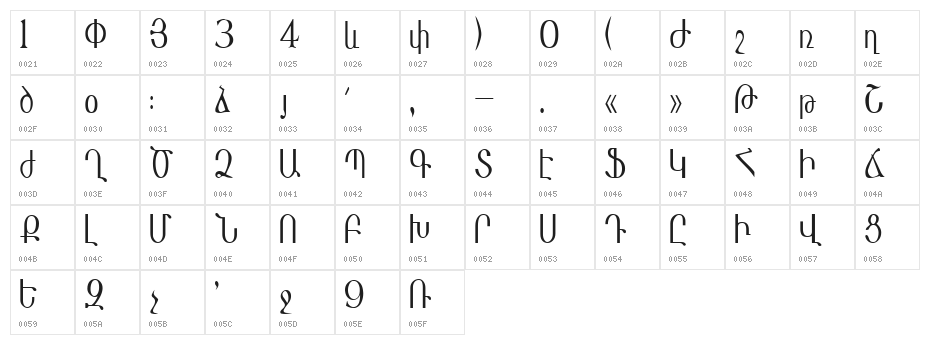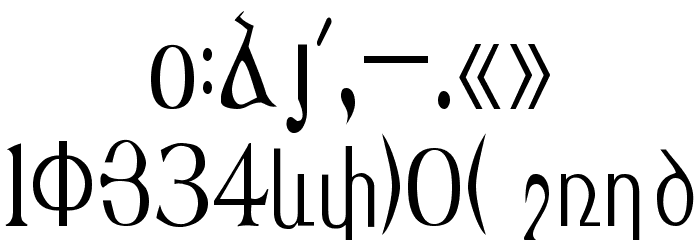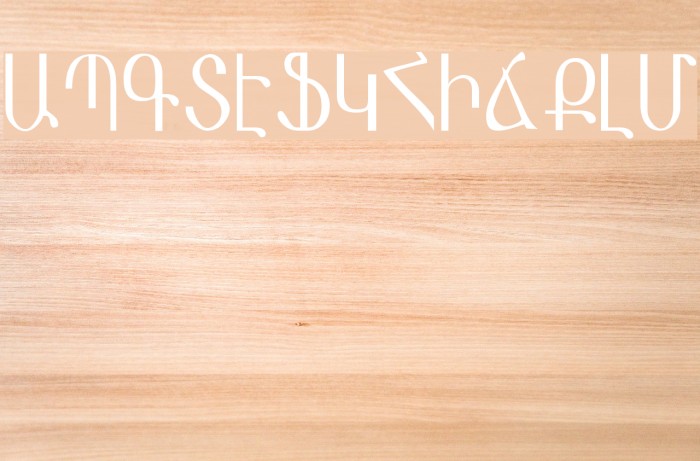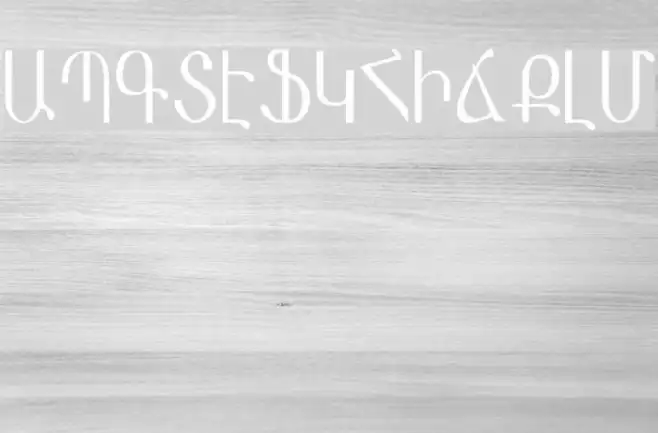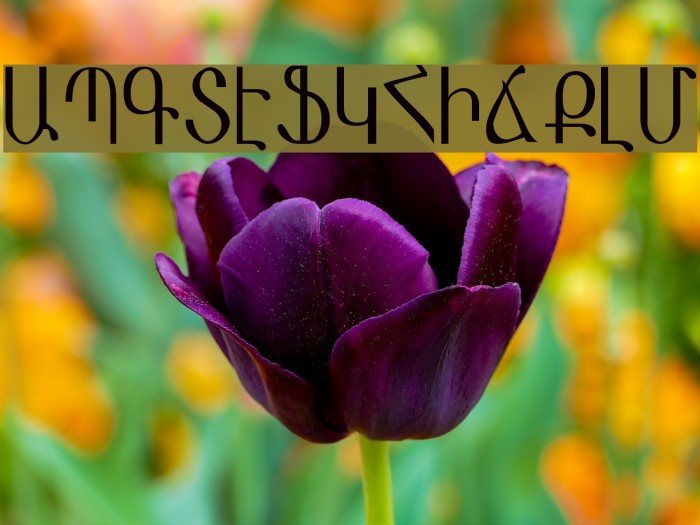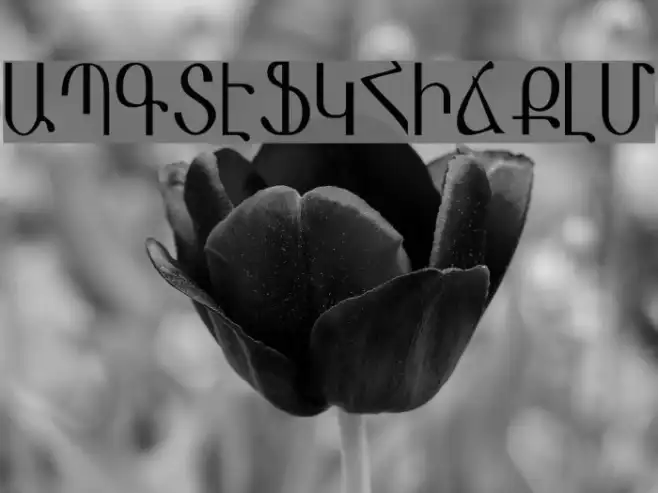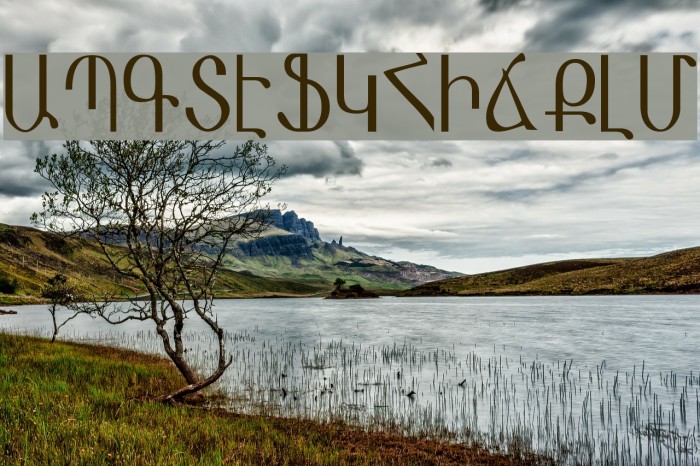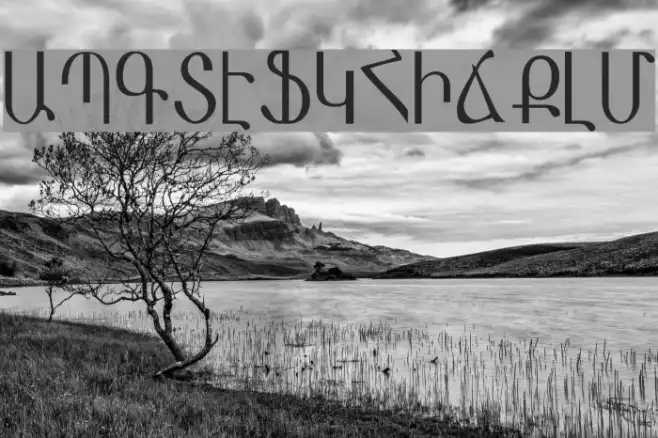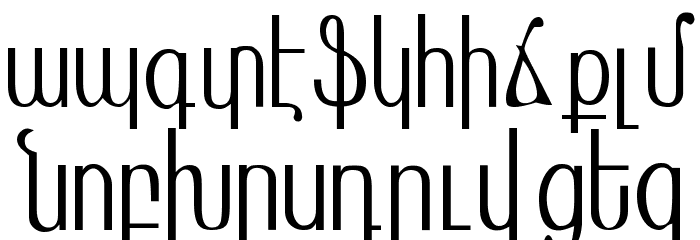
MasisNihar Font
MasisNihar Description
This font features a unique and artistic design, characterized by its elegant curves and sharp angles. The letters are crafted with a modern aesthetic, combining both traditional and contemporary elements. The strokes are consistent in thickness, providing a balanced and harmonious appearance. The font's distinctive style makes it suitable for creative and decorative uses, offering a fresh take on classic letterforms. Its clean lines and geometric shapes contribute to its readability while maintaining an artistic flair.
| Use Case | Logos, Posters, Artistic projects |
| Proposed Projects | Ideal for branding, posters, and artistic projects that require a modern and unique touch. |